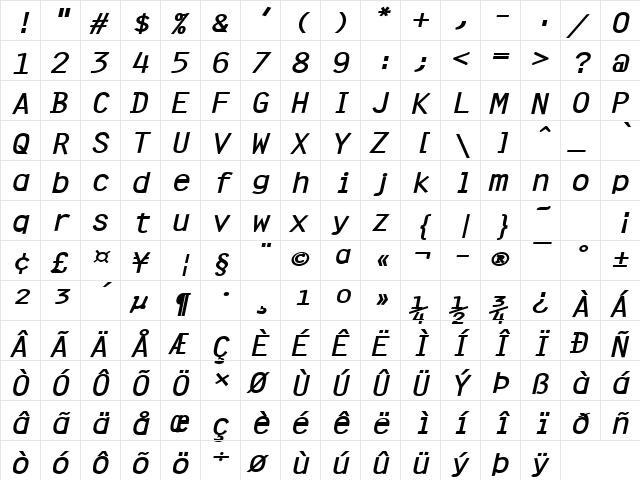
Clean-Extended Bold Italic
Design Context for Clean-Extended Typeface
Clean-Extended is a composed and adaptable typeface that performs quietly and consistently across a wide range of design contexts. The slanted form adds forward momentum and visual energy. Its bold stroke weight gives it real presence on the page.
Pro Tip: Try Clean-Extended for annotation and caption copy alongside an upright companion — the contrast in angle creates a dynamic but ordered typographic system.